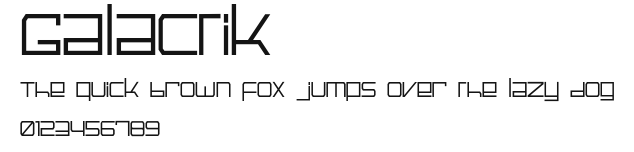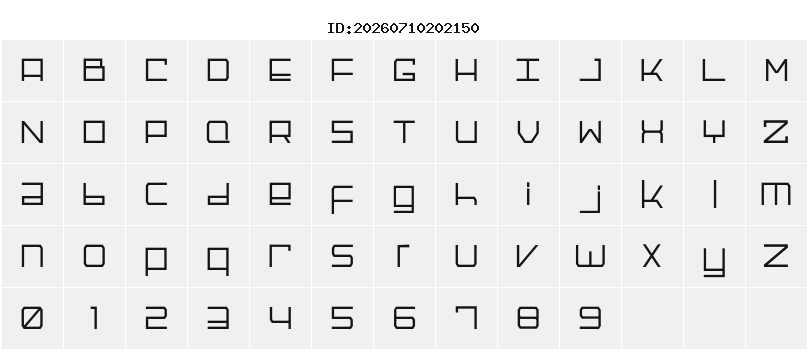
Galactik Preview
• Font Name: Galactik
• Full Font Name: Galactik
• Designer: Wesley Pastrana
• Manufacturer: Wesley Pastrana Rosado(Weslo GFx)
About Galactik.otf
Galactik.otf is a modern, elegant sans-serif font designed for ultimate readability and visual harmony. Perfect for branding, headlines, web design, and print materials.